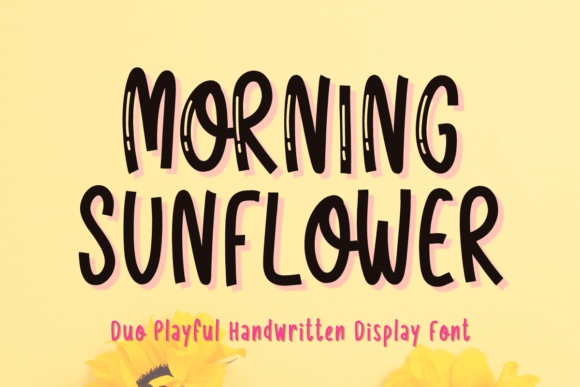
Take a stroll through a sun-drenched meadow, where blooms of Morning Sunflower bask in golden glory. This display font, crafted with meticulous care by AquariiD, is a vibrant symphony of bold strokes and playful curves, dancing across your designs like a jubilant melody.
Morning Sunflower is not just a font; it's a gateway to a world of creativity and expression. Picture your logos, branding, and posters bursting with life, adorned with Morning Sunflower's bold, captivating letters. Let your social media posts and greeting cards bloom with its playful charm, spreading joy and warmth like a summer breeze.
This font is a canvas for your imagination, a tool to transform your creative visions into tangible masterpieces. Its thick, bold letters demand attention, making your messages impossible to ignore. Whether you're a seasoned designer or a budding enthusiast, Morning Sunflower is your key to unlocking a world of design possibilities.
Dive into the Morning Sunflower experience and let your designs flourish. Let its enchanting aura cast a spell on your audience, leaving them captivated and渴望更多. Embrace the beauty of bold expression and watch your creative projects blossom with Morning Sunflower.